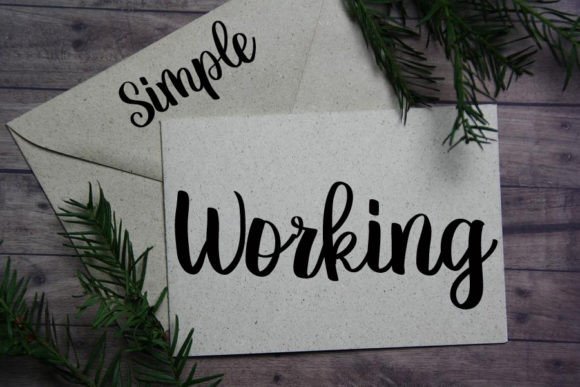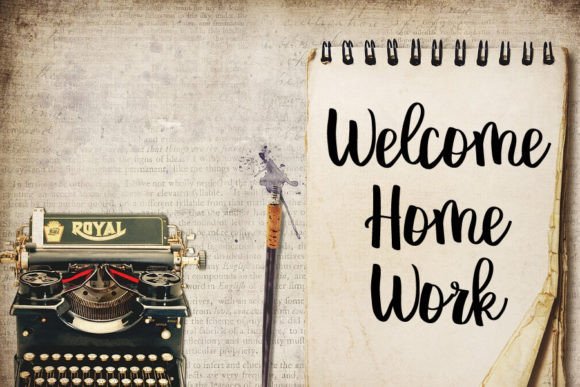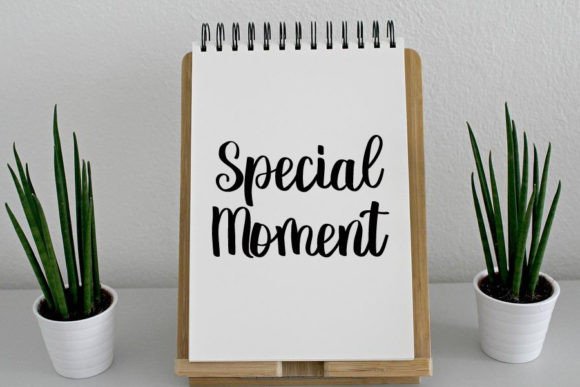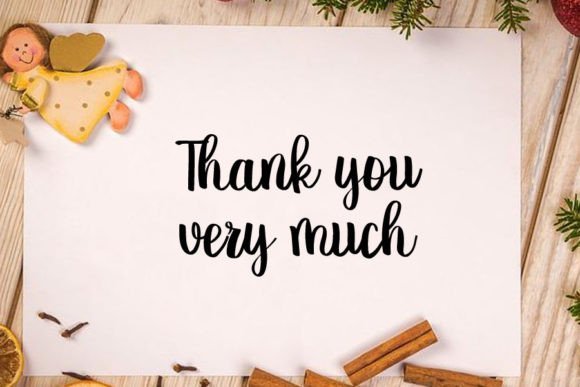
Discover the Elegance of Agatha Font: Elevate Your Designs with Fresh and Beautiful Typography
In the world of design, typography plays a crucial role in conveying messages, expressing creativity, and capturing the audience’s attention. When it comes to selecting the perfect font for your projects, you want something that is not only aesthetically pleasing but also versatile and effective. This is where Agatha Font comes into play – a fresh and beautiful typeface that can elevate your designs to new heights. In this article, we’ll explore the features, benefits, and uses of Agatha Font, and why it’s an excellent choice for designers and crafters alike.
What is Agatha Font?
Agatha Font is a modern, elegant, and simple typeface that has been designed to meet the needs of creative professionals. Its clean lines, subtle curves, and unique characteristics make it an excellent choice for a wide range of design projects. Whether you’re working on a YouTube banner, cover logo mockup, wedding invitation, ID card, flyer, or craft project, Agatha Font is sure to impress.
Key Features of Agatha Font
- Fresh and Beautiful Design: Agatha Font boasts a fresh and beautiful design that is sure to capture the attention of your audience. Its elegant and simple style makes it perfect for designs that require a touch of sophistication.
- Versatility: This font is incredibly versatile and can be used for a wide range of design projects, from digital designs like YouTube banners and social media graphics to print materials like wedding invitations and ID cards.
- Unique Characteristics: Agatha Font has unique characteristics that set it apart from other fonts. Its subtle curves and clean lines make it easy to read and visually appealing.
- Simple and Easy to Use: Despite its elegant design, Agatha Font is simple and easy to use, making it perfect for designers of all skill levels.
Benefits of Using Agatha Font
By using Agatha Font in your designs, you can enjoy several benefits, including:
- Enhanced Visual Appeal: Agatha Font can add a touch of elegance and sophistication to your designs, making them more visually appealing and engaging.
- Increased Readability: The clean lines and simple design of Agatha Font make it easy to read, even at small sizes.
- Improved Brand Image: By using a unique and elegant font like Agatha, you can create a strong brand image that sets you apart from your competitors.
- Time-Saving: Agatha Font is easy to use and doesn’t require a lot of time and effort to integrate into your designs.
Use Cases for Agatha Font
Agatha Font is a versatile typeface that can be used for a wide range of design projects, including:
- YouTube Banners: Create eye-catching YouTube banners that showcase your brand’s personality and style.
- Cover Logo Mockups: Design stunning cover logo mockups that showcase your brand’s logo in a beautiful and elegant way.
- Wedding Invitations: Create beautiful and elegant wedding invitations that set the tone for the big day.
- ID Cards: Design professional and stylish ID cards that make a great impression.
- Flyers: Create eye-catching flyers that promote your business, product, or service.
- Crafts: Use Agatha Font to add a touch of elegance and sophistication to your craft projects.
In conclusion, Agatha Font is a fresh and beautiful typeface that can elevate your designs to new heights. Its elegant design, versatility, and unique characteristics make it an excellent choice for designers and crafters alike. By using Agatha Font, you can create stunning designs that capture the attention of your audience and leave a lasting impression. So why wait? Download Agatha Font today and take your designs to the next level!